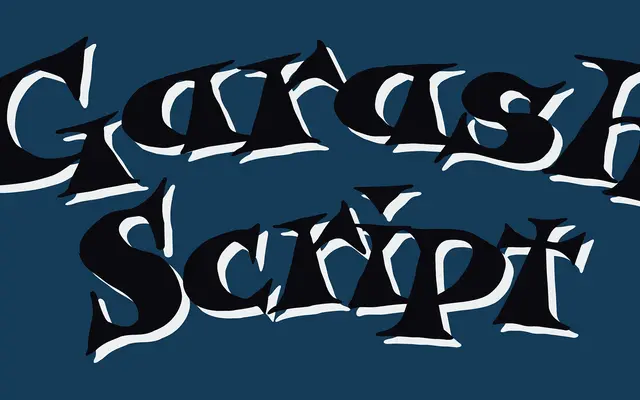
Garash Script
An ornate decorative script drawn from vintage Eastern European lettering traditions, aimed at playful and illustrative applications.
The letterforms take their cues from the ornate hand-lettering found in vintage Eastern European print and packaging. The style suits picture books, children's product design and any application where a warm, nostalgic hand-drawn quality is needed. Its decorative character makes it a display-first choice rather than a workhorse text face.
Explicitly a script typeface with highly decorative, ornate letterforms inspired by vintage Eastern European lettering, placing it firmly in the decorative script subcategory.